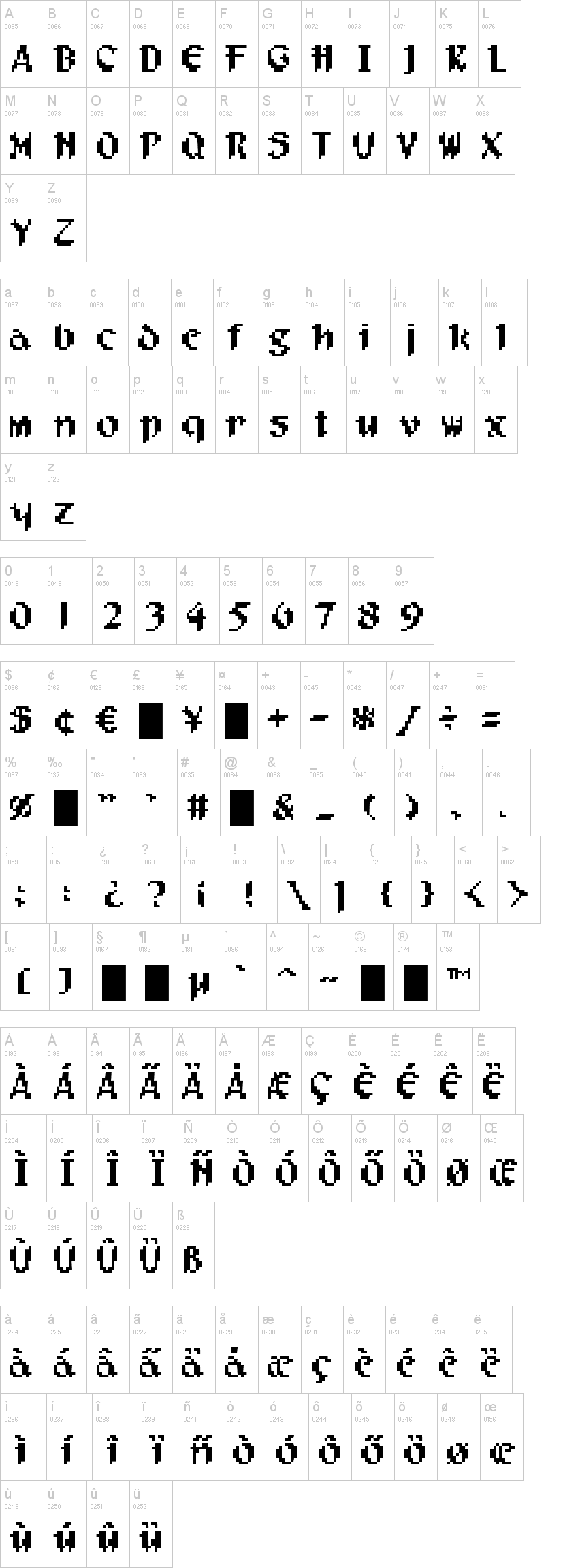
Note of the authorFilgaia is a medieval sans-serif pixel font recreation based on the original main text font appearing in the Sony PlayStation video game Wild Arms, developed by Media Vision and released by Sony in 1996.
This font includes a vast selection of additional diacritic variants and many more characters, each one of them designed to match the spirit and style of the original font design.
To recreate the original in-game appearance of this font, I recommend using font sizes that are multiples of 11pt and avoid any anti-aliasing or other font smoothing methods.
Features:
473 characters total
Monospaced display typeface
Countless additional special characters, diacritic variants, etc.